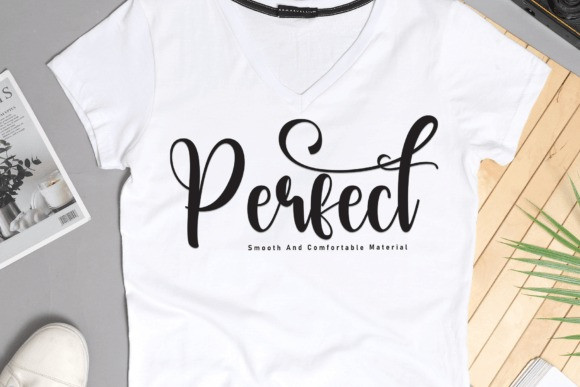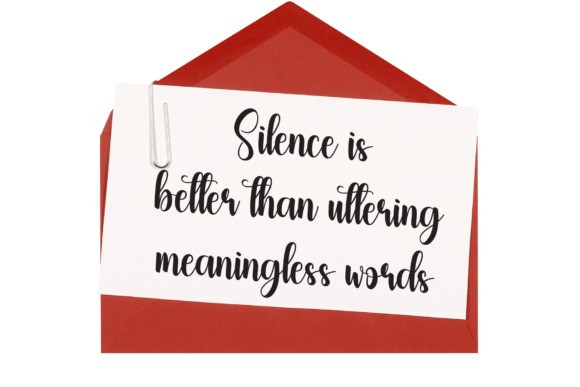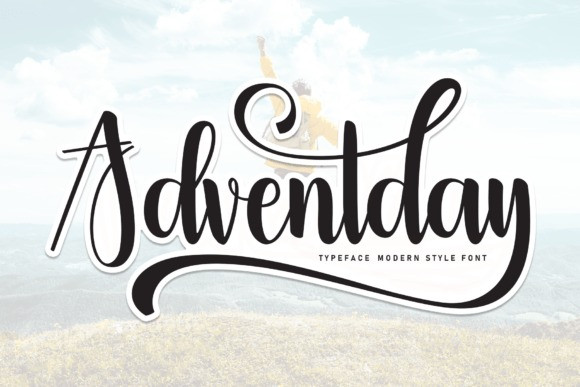
Adventday Script Font
Adventday Script Font is a delightful handwritten font adorned with charming swashes, adding a touch of whimsy and elegance to your text. Its graceful curves and fluid strokes capture the essence of handwritten beauty, making it perfect for conveying warmth and friendliness in your designs. Whether used for invitations, greeting cards, or creative projects, Adventday lends a lovely and inviting touch to any text, making every word feel like a heartfelt expression.